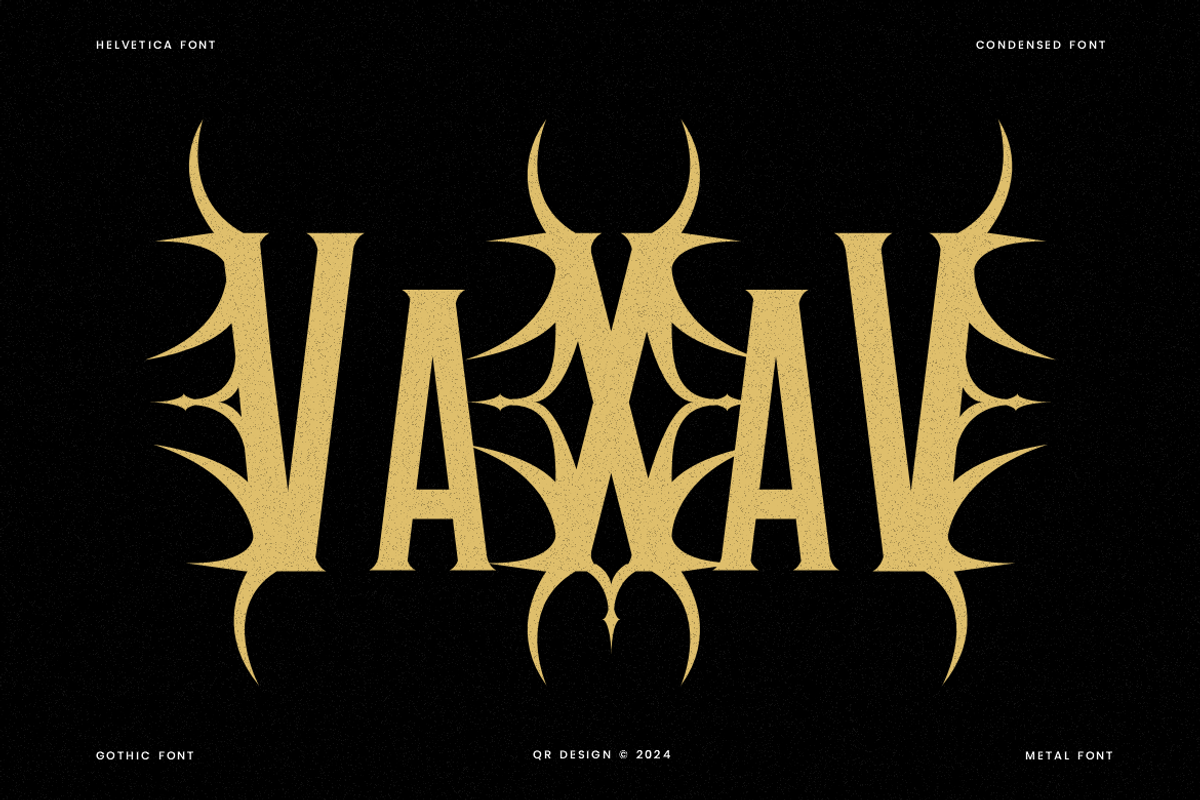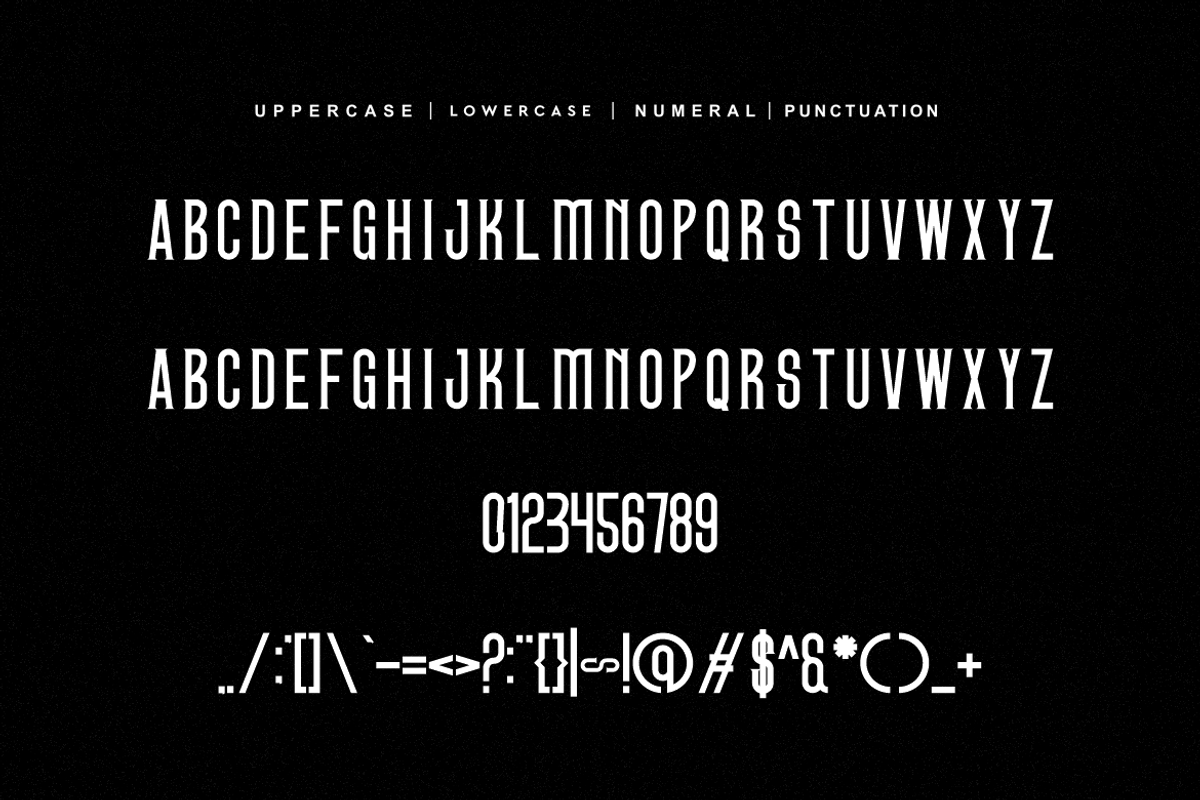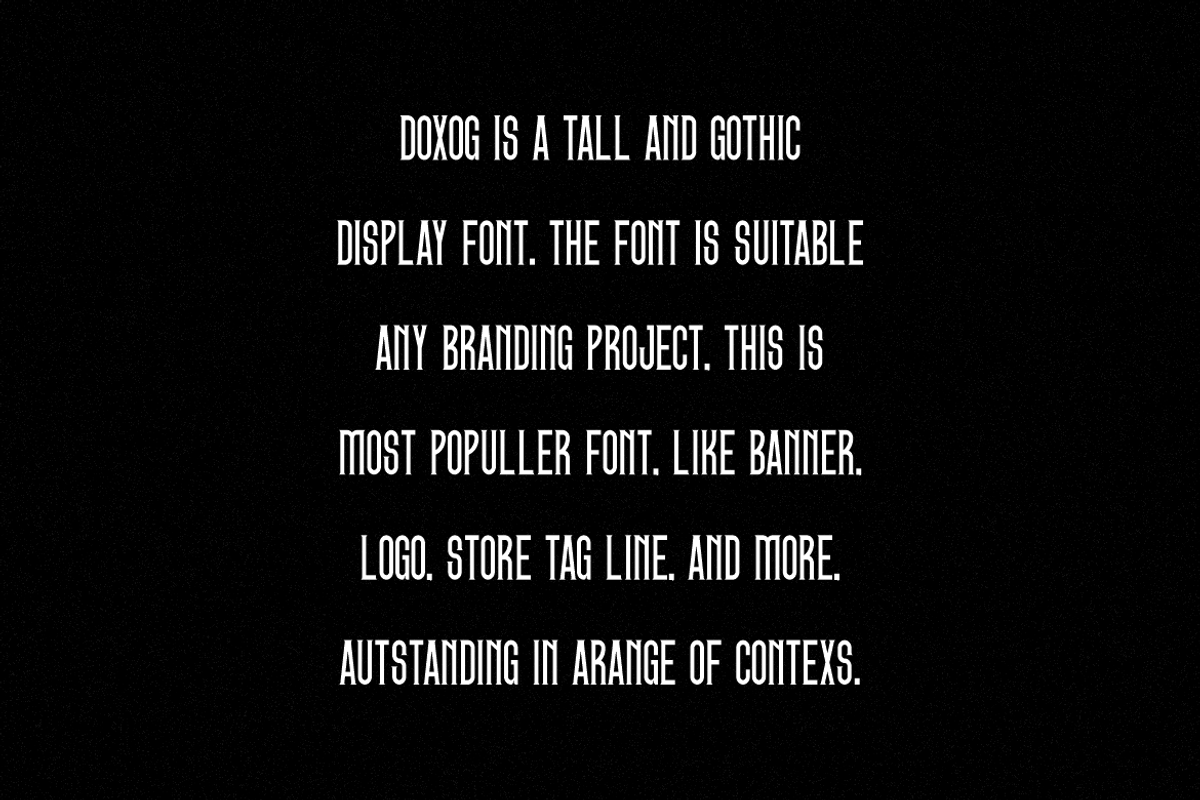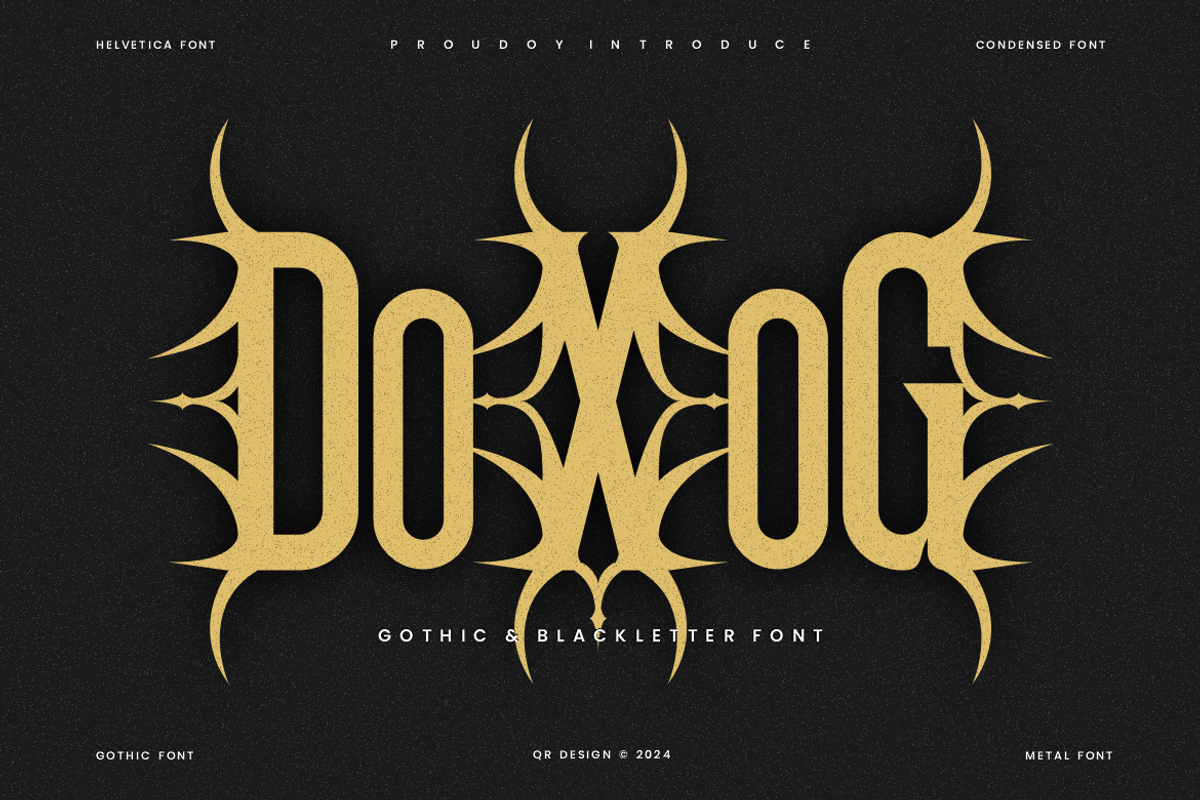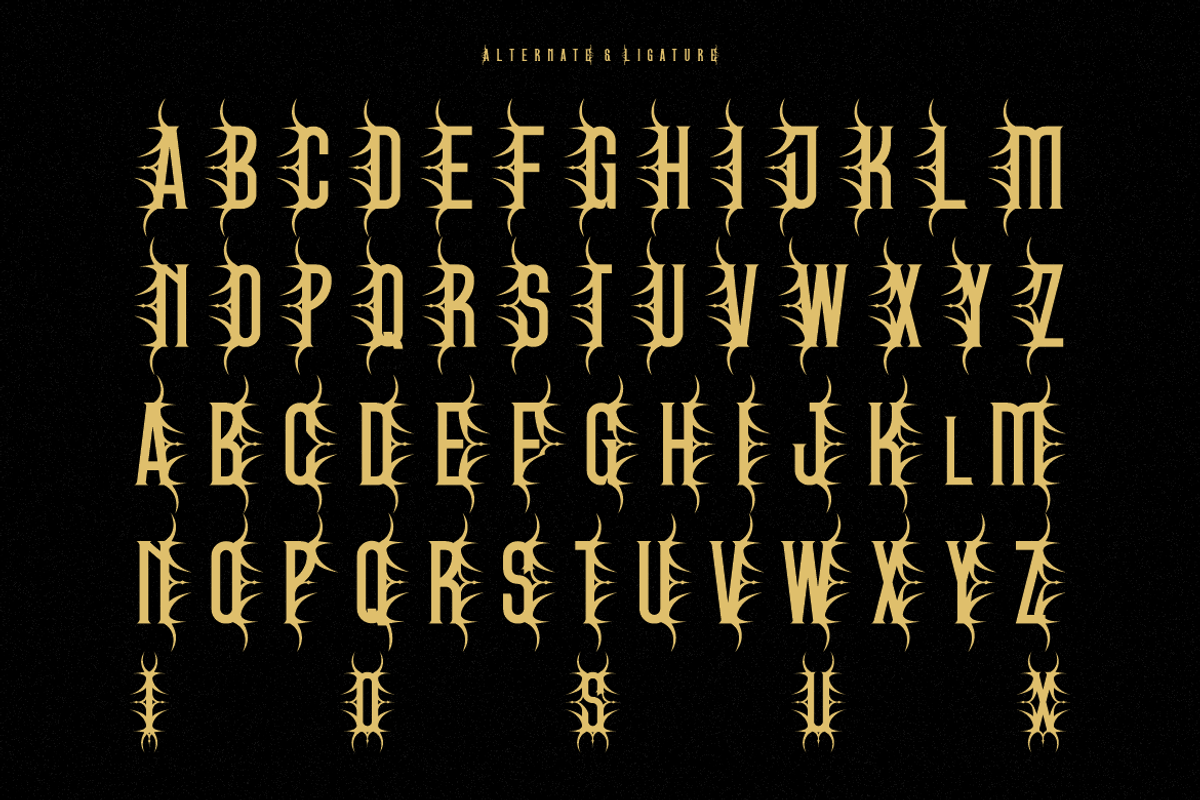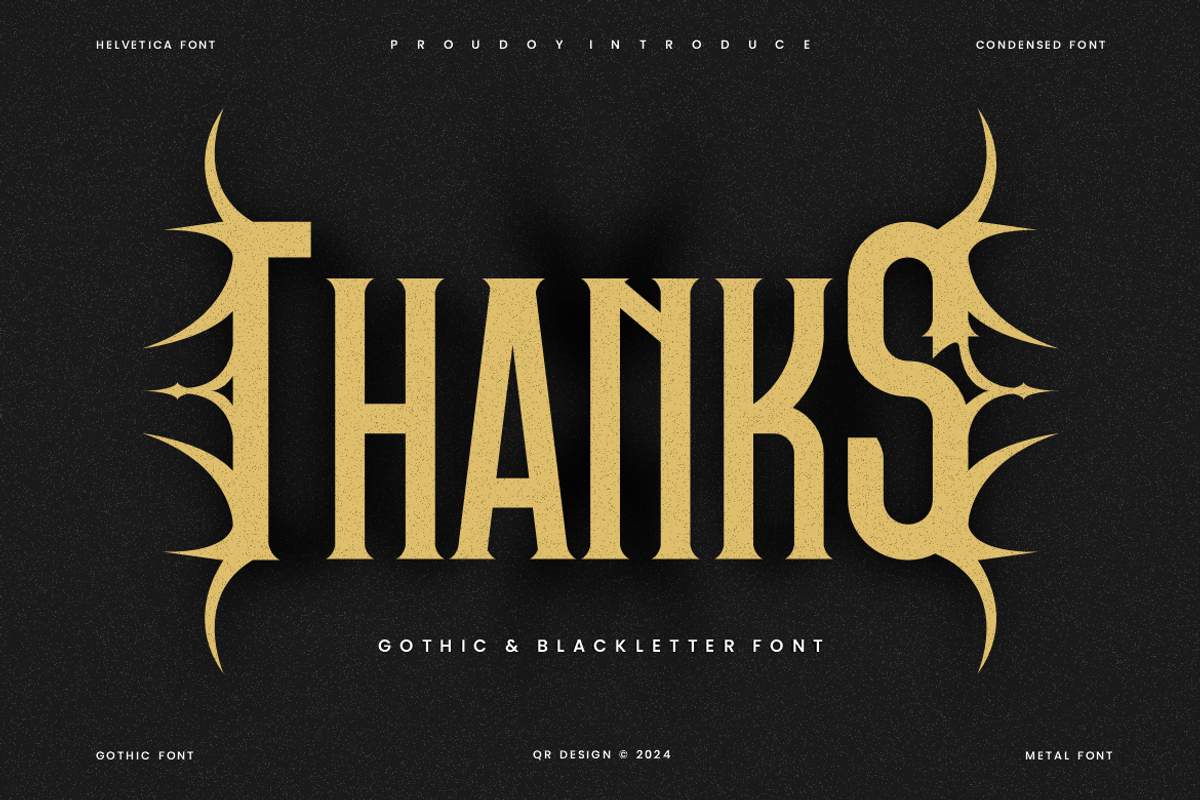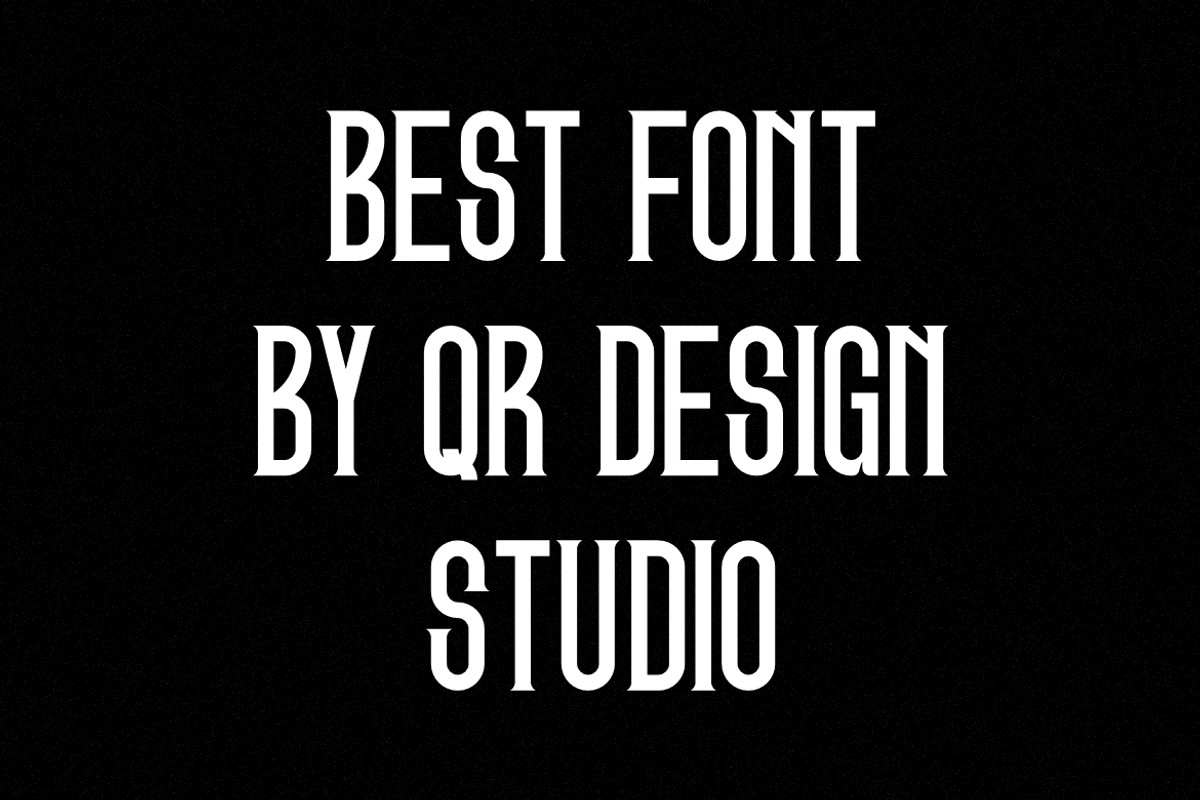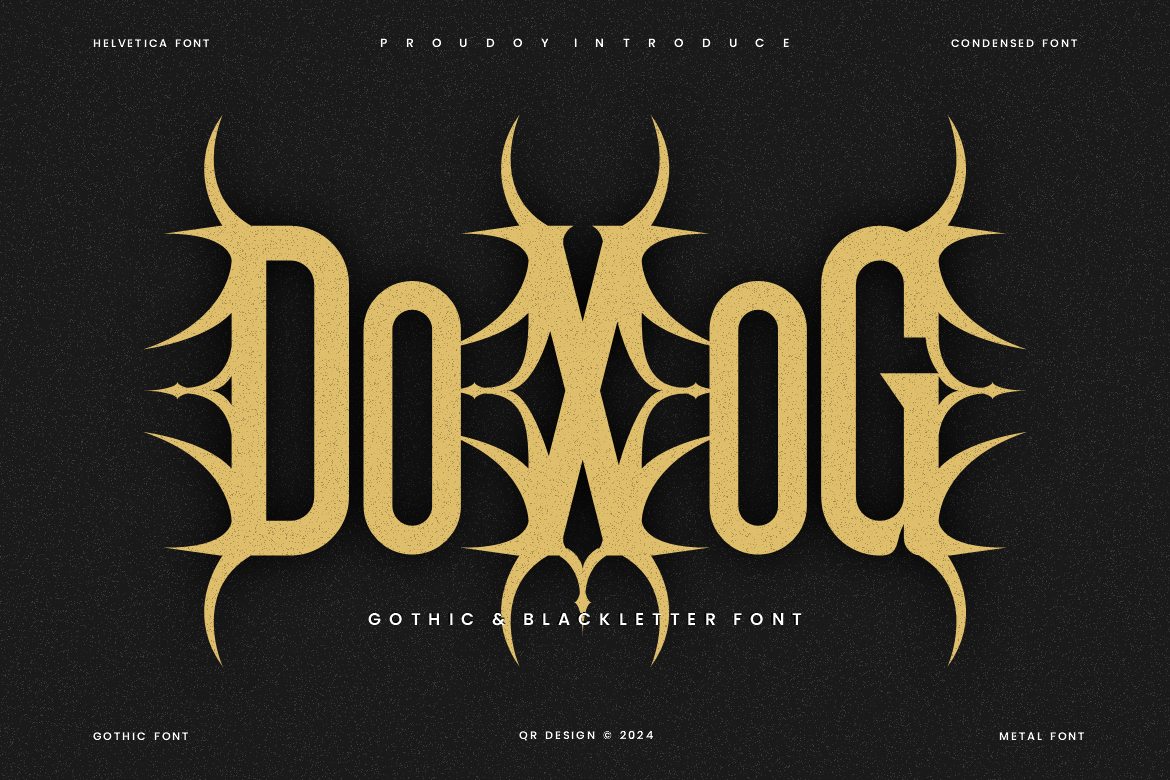
Doxog - Gothic Typeface Font
Doxog - Gothic Font is a bold and authentic display font. The font is suitable for any branding project like poster, logo, sport, and many more. Outstanding in a wide range of contexts.